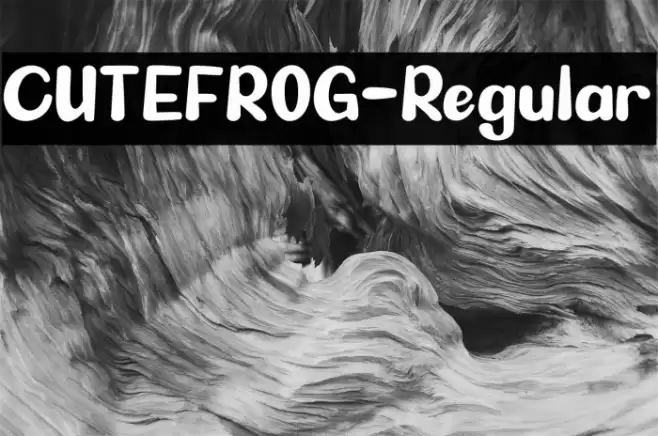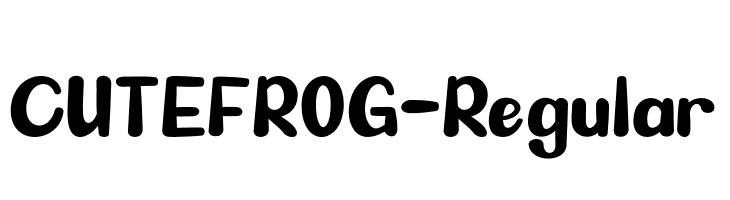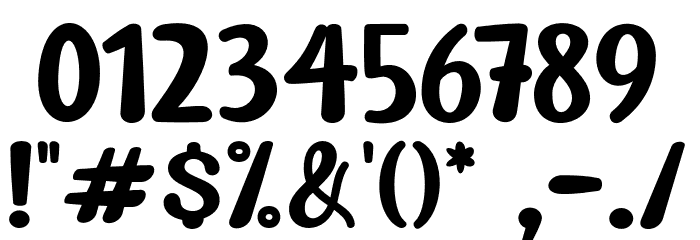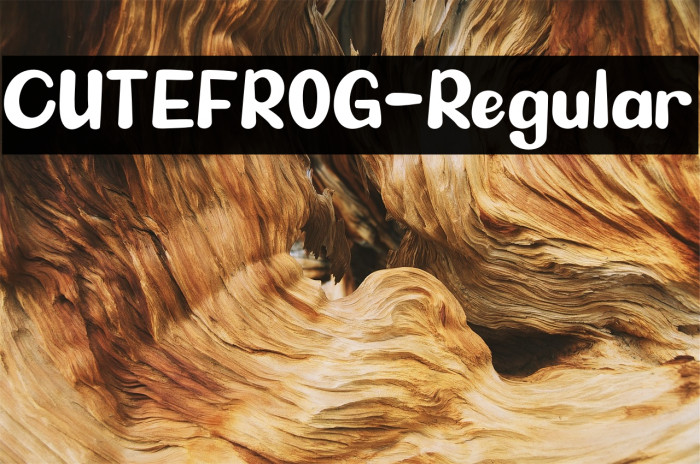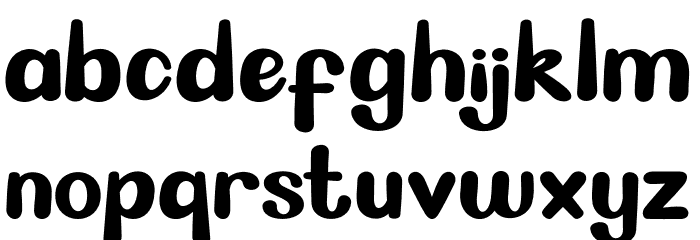
CUTEFROG-Regular Font
CUTEFROG-Regular Description
This playful and whimsical typeface features bold, rounded characters with a friendly and approachable appearance. The letters have a consistent stroke width, giving them a uniform look, while the rounded edges add a touch of softness. The font maintains a casual and informal style, making it suitable for projects that aim to convey a sense of fun and creativity. The numerals and special characters are designed to match the playful aesthetic, ensuring a cohesive look across all text elements. The overall design is versatile, making it ideal for a variety of creative applications.
A playful, rounded typeface with a bold and friendly appearance from Cartoon fonts.
- Proposed Projects: Ideal for children's books, playful branding, casual invitations, and creative posters.
- Overall Style: Playful